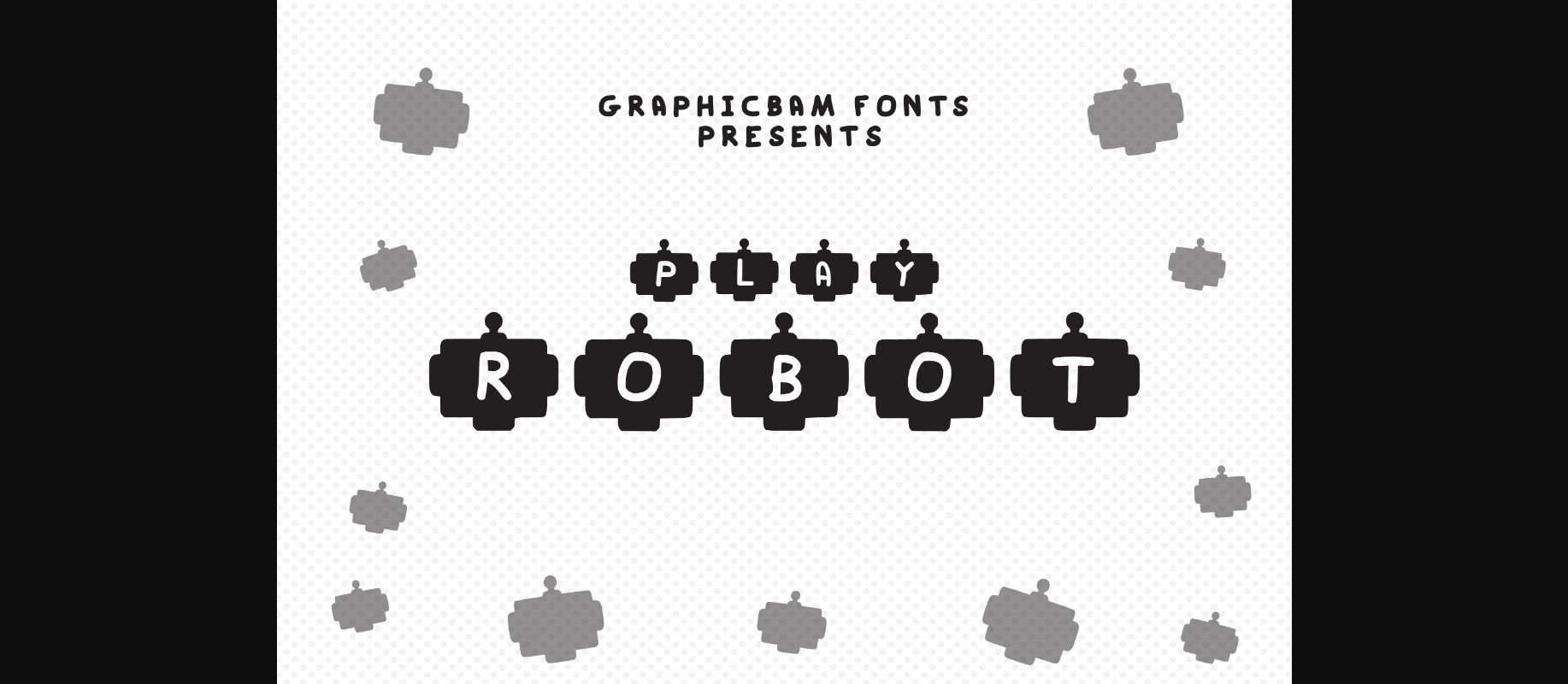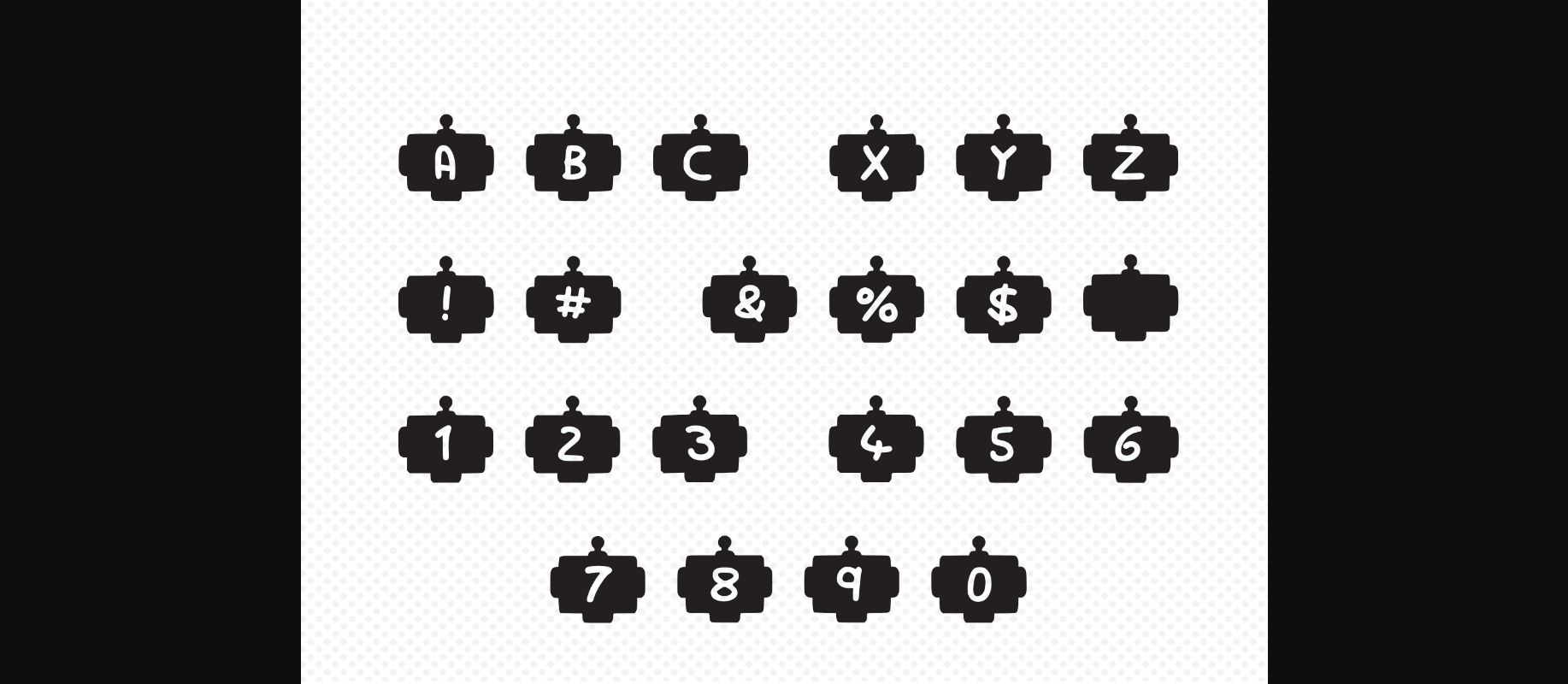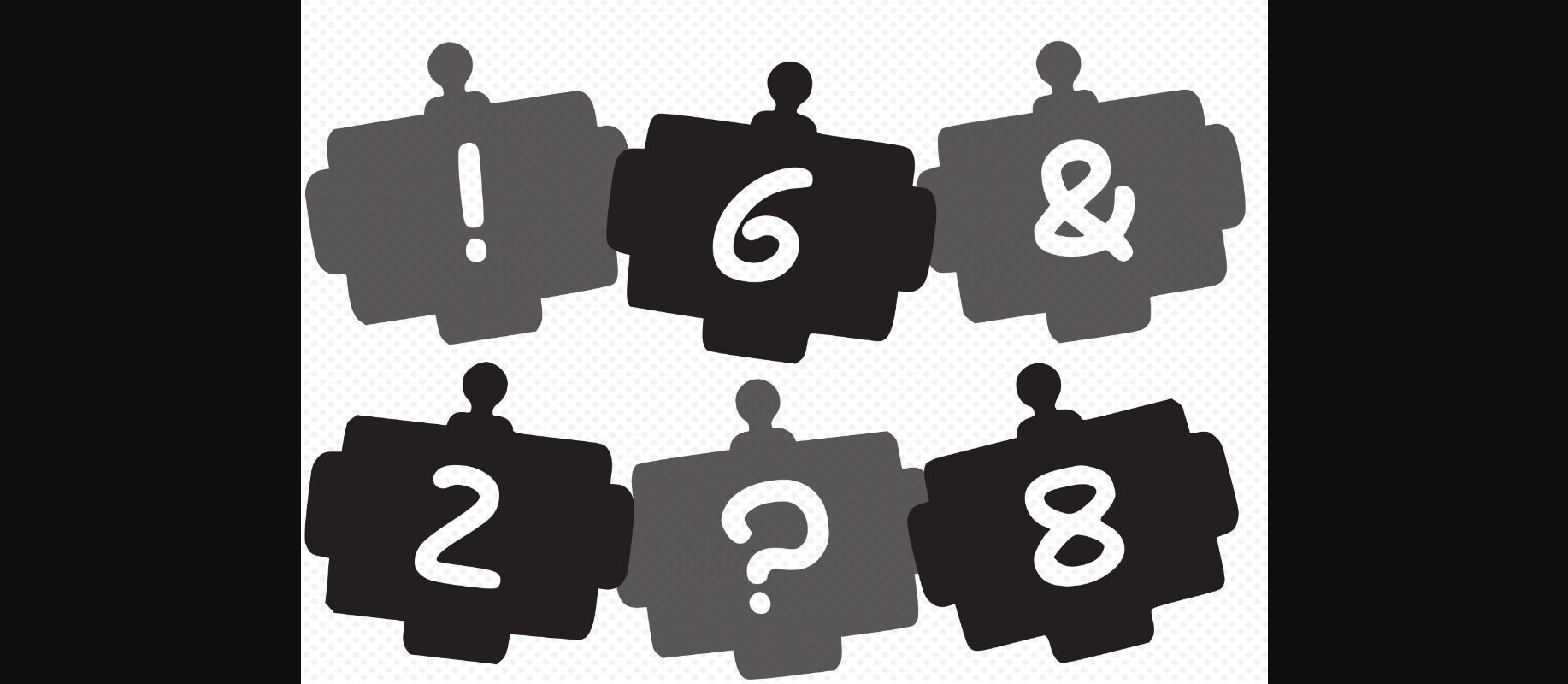
Play Robot Font
About Play Robot Font
Play Robot is the perfect decorative font to use in futuristic projects! It looks fun and inviting, and it can make your products seem up-to-date and ready to go!